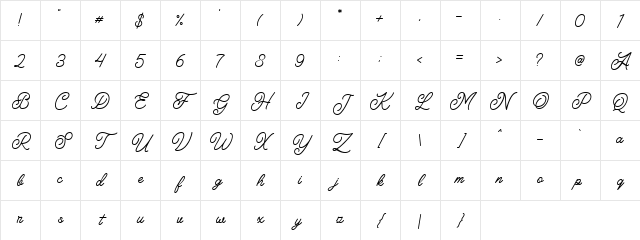
Felician Demo Regular Free Font
Felician Demo Regular
Designer: Weape Studio
Design Context for Felician Demo
Felician Demo is a composed and adaptable typeface that performs quietly and consistently across a wide range of design contexts.